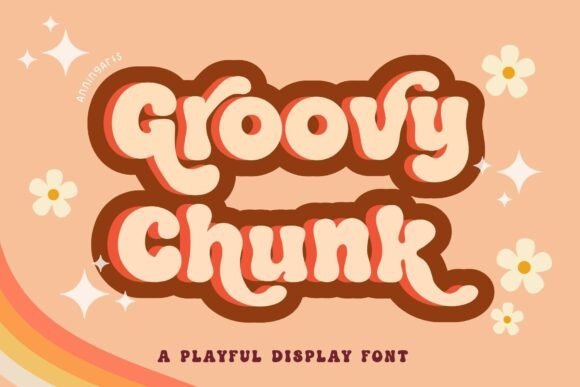
Get Your Groove On with the Groovy Chunk Font
Have you ever stared at a blank design canvas, waiting for that spark of inspiration to strike? It’s the moment when everything comes together – colors, textures, and typography – to create something truly magical. For designers, this moment is what makes all the hard work worth it. And that’s exactly what the Groovy Chunk Font is designed to help you achieve.
With its bold, bubbly letterforms and funky 70s vibes, the Groovy Chunk Font is the perfect addition to any retro-themed project. Whether you’re crafting custom merchandise, designing a bold brand identity, or simply adding some flair to a social media post, this font is sure to bring that extra oomph your design needs.
Groovy Chunk Font Key Features
- Font Family: Groovy Chunk Font is a display font, ideal for creating a playful and eye-catching visual impact.
- Character Set: The font includes a wide range of characters, including uppercase and lowercase letters, numbers, and punctuation marks.
- Resolution: Designed to be highly scalable, the Groovy Chunk Font is suitable for use at various resolutions, from low-resolution displays to high-resolution prints.
- Unique Characteristics: The font’s unique chunky design and playful feel make it an ideal choice for creating bold and eye-catching headlines, titles, and other display text.
Groovy Chunk Font Review
Overall, I think Groovy Chunk Font is a fun and playful addition to any design project ✨. The font is a great choice for creating a retro or psychedelic vibe, and the chunky texture adds a nice depth to text.
The font is highly customizable, with a wide range of options for adjusting the size, color, and spacing of the text. This makes it easy to use in a variety of contexts, from social media posts to print materials.
Some of the key features that work well include:
- Fun and playful aesthetic ✨
- Great for creating a retro or psychedelic vibe
- Chunky texture adds depth to text
- May not be suitable for formal or professional projects ⚠️
- Can be overwhelming in large quantities
- May not be compatible with all font sizes or styles
Overall, I would recommend Groovy Chunk Font for projects where a fun and playful vibe is needed. Just be mindful of the potential limitations and use it judiciously.
For optimal results, use the Groovy Chunk Font for headings, titles, and other emphasis text.
Pair it with bold, bright colors to create eye-catching designs.
Common use cases include posters, flyers, social media graphics, and event invitations.
Q: Can I customize the Groovy Chunk Font for my specific project?
Yes, you can customize the Groovy Chunk Font for your specific project. The font includes several OpenType features, such as ligatures, swashes, and stylistic sets, which can be accessed through font software or design tools. You can also experiment with font pairing and styling to create a unique look for your project.